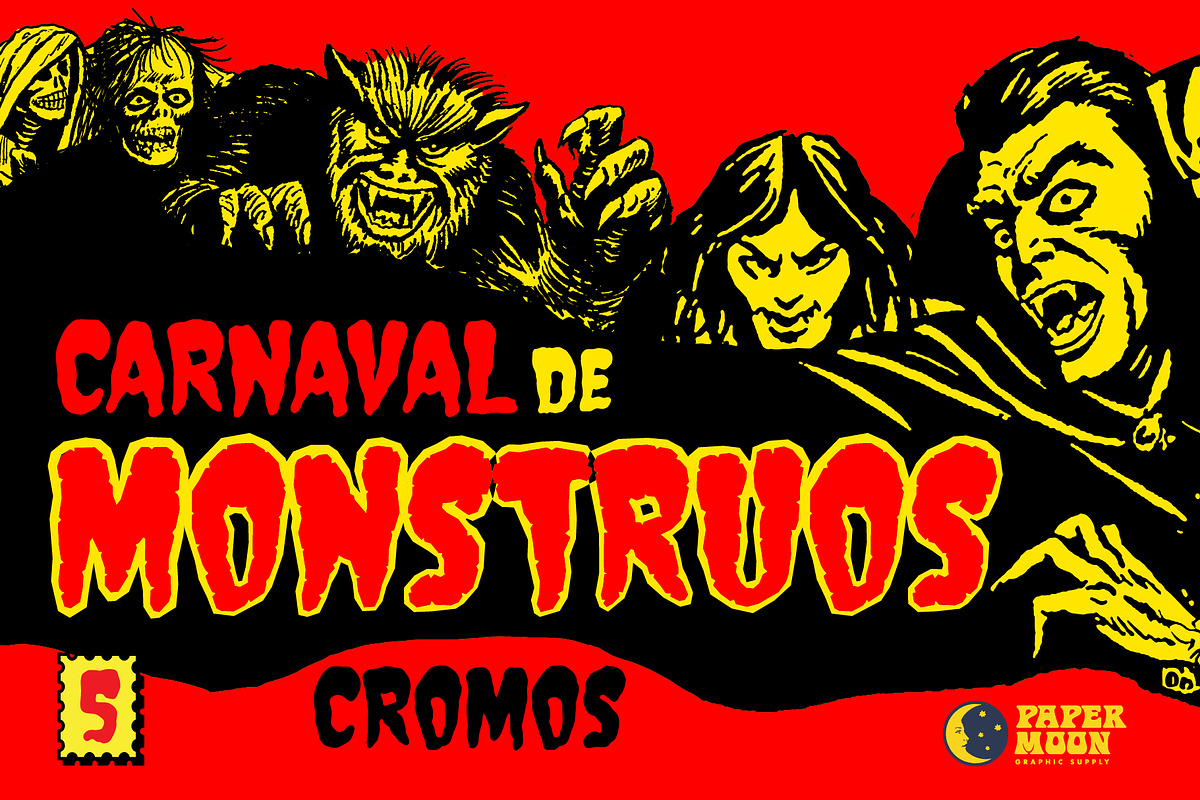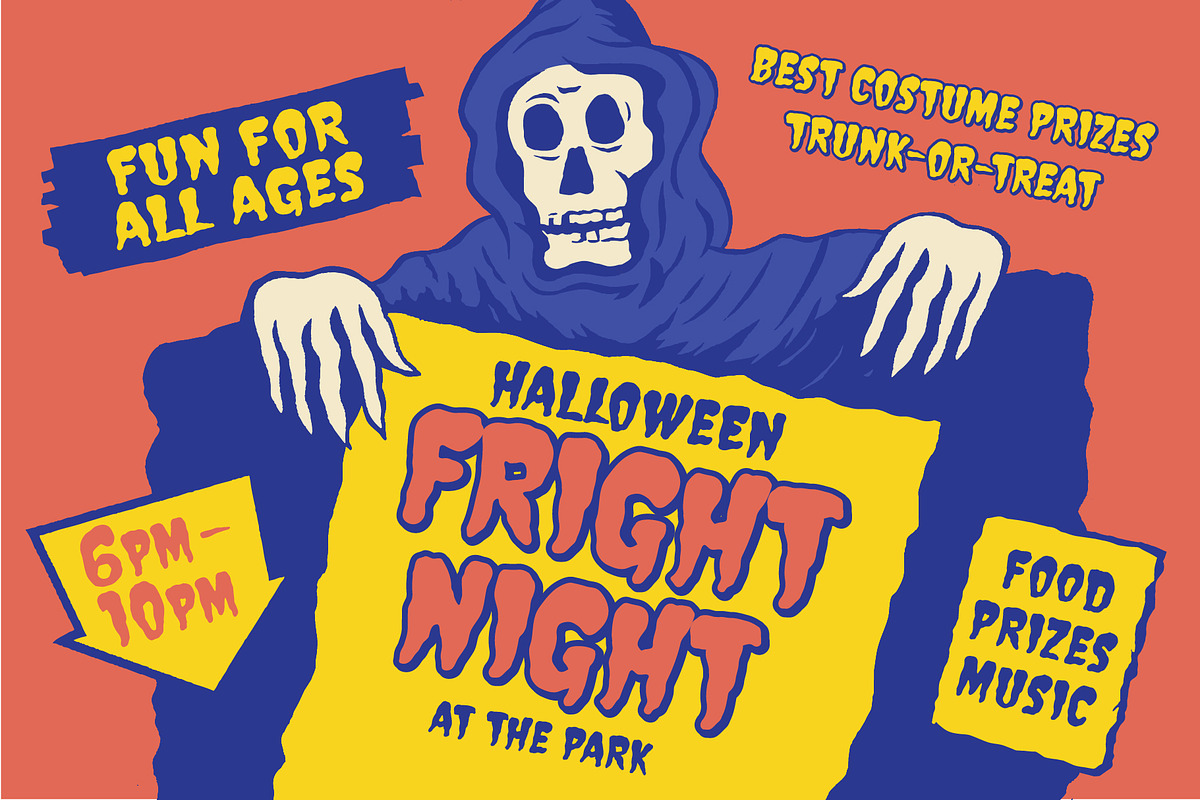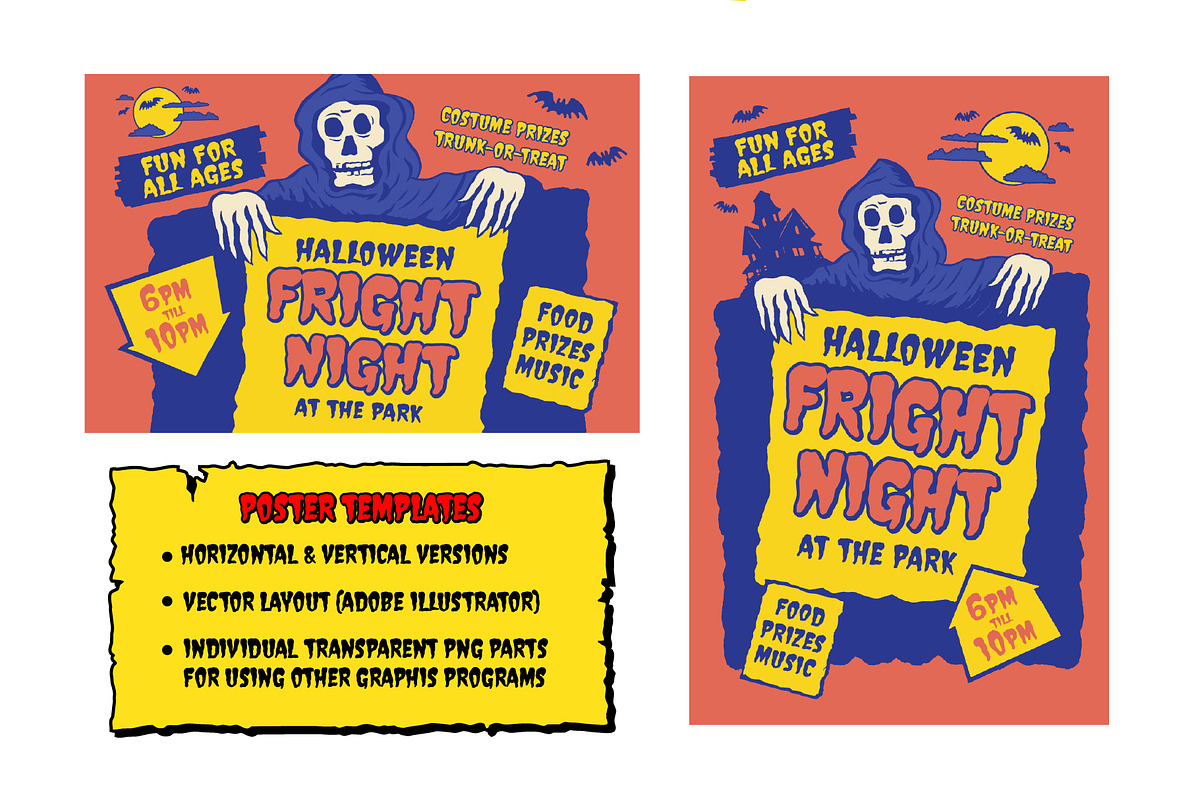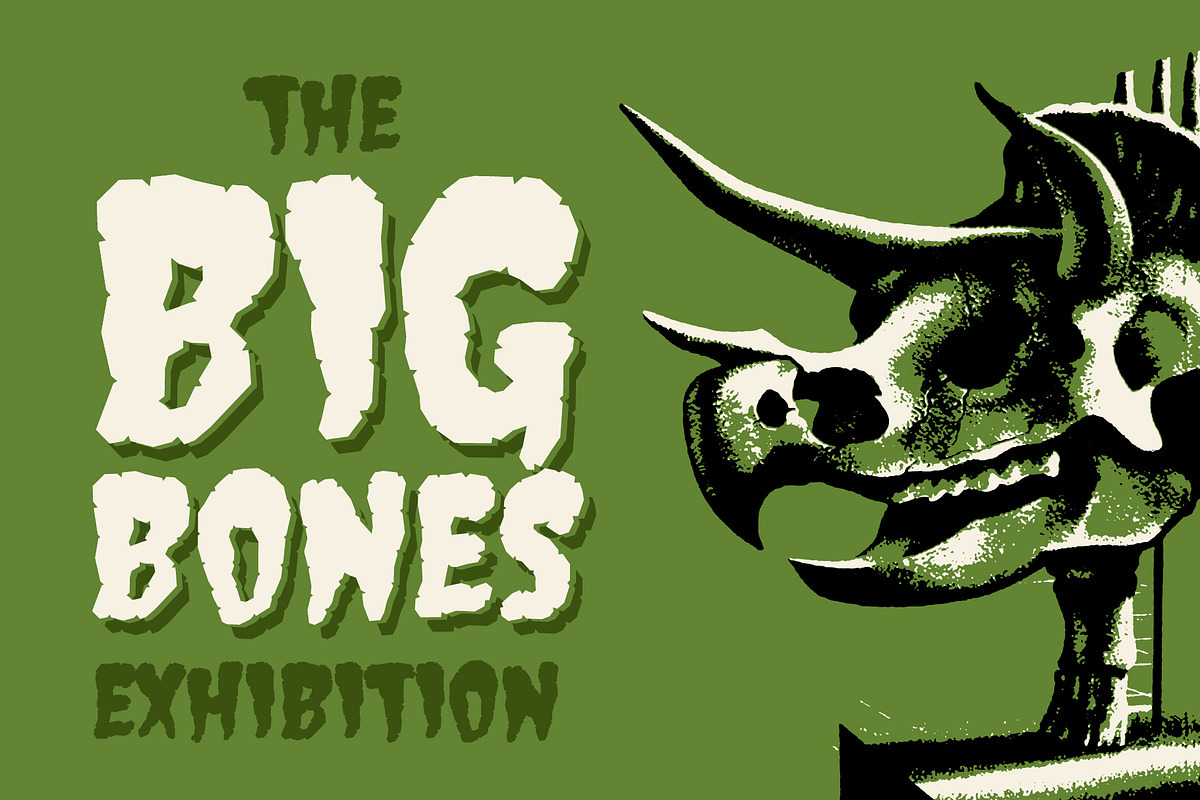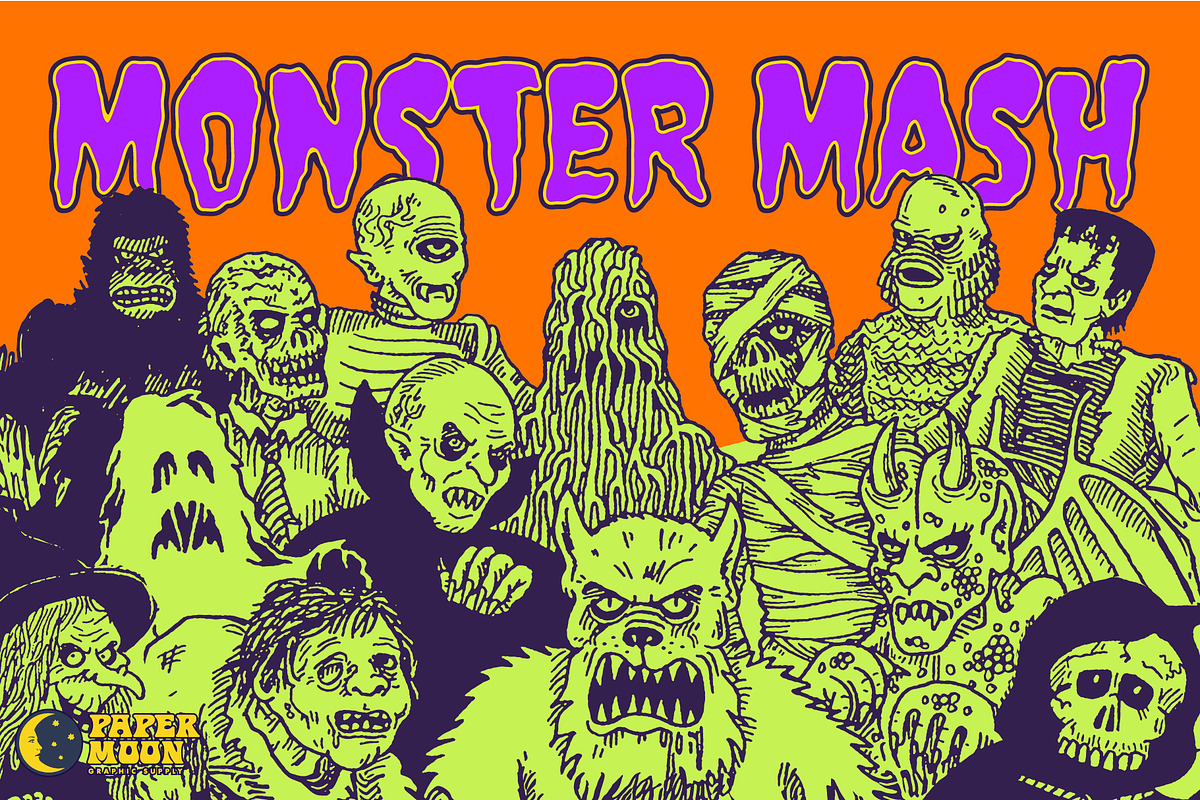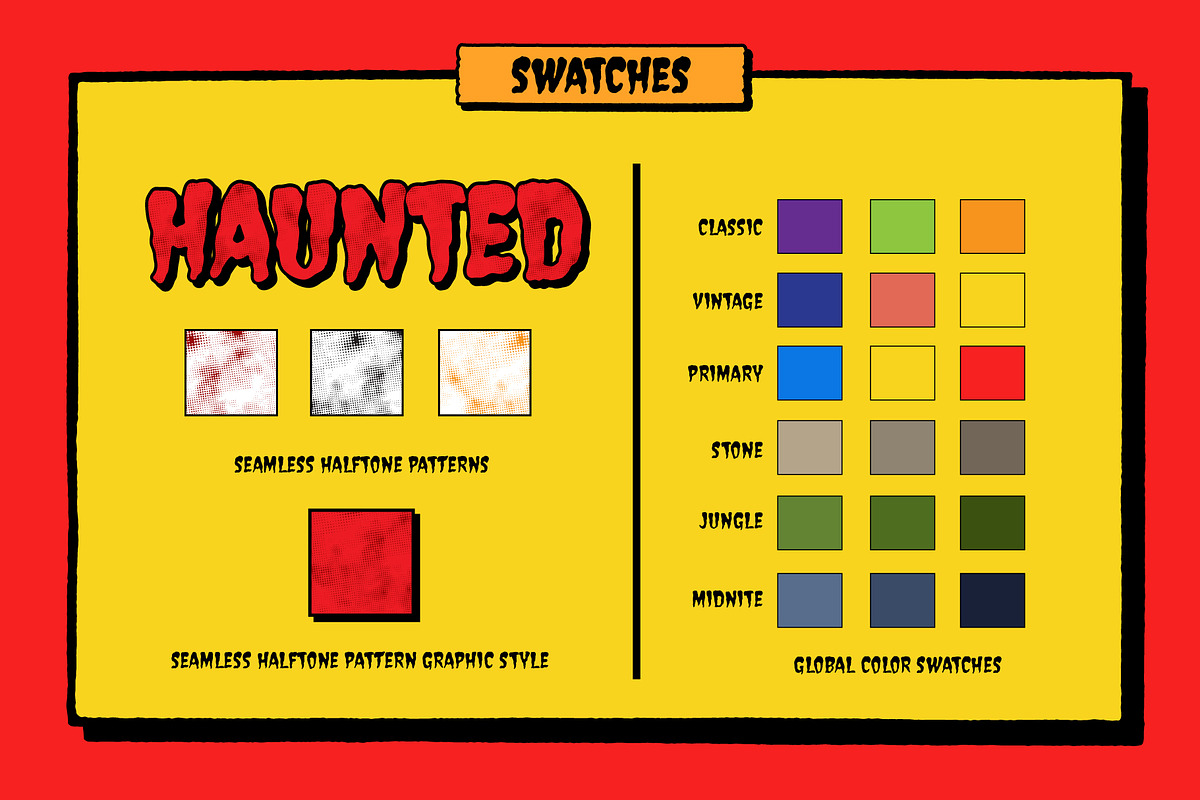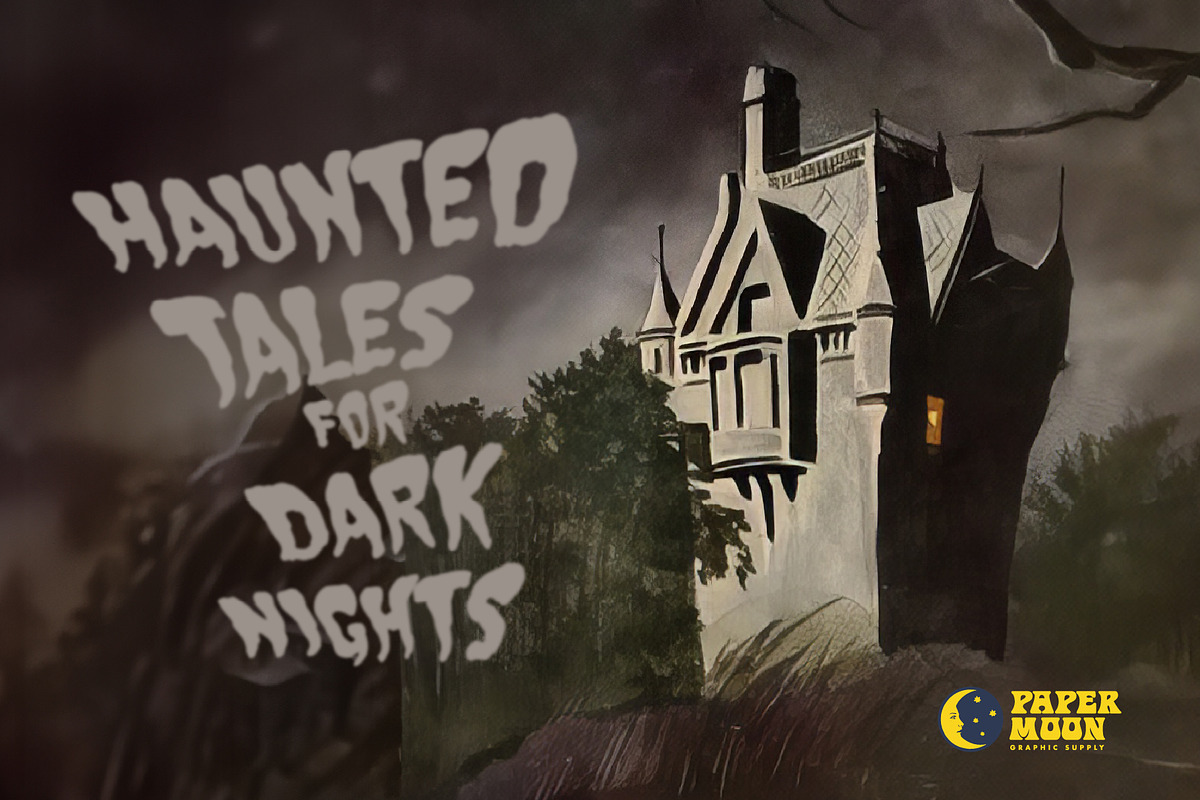
House of Spook Show Collection
PM House of Spook Show Design Collection
Capture the spooky season and vintage horror vibes, or create your own Halloween event poster with the House of SpookShow Design Collection — a multi-style font vector image system designed to add bold, authentic retro style to your spooky season designs. Inspired by vintage mid-nite Spook Show posters, pulp covers, horror comics, and show card hand-lettering.
- Five styles with multiple fills and text effects
- Complete alphabet, numbers, and punctuation sets
- Advanced kerning and OpenType features
- Ligatures and contextual alternates
- Multilingual support for Western, Eastern, and Southern Europe, plus South America
PM House of Spook Show was created by award-winning illustrator and designer Scott Banks.